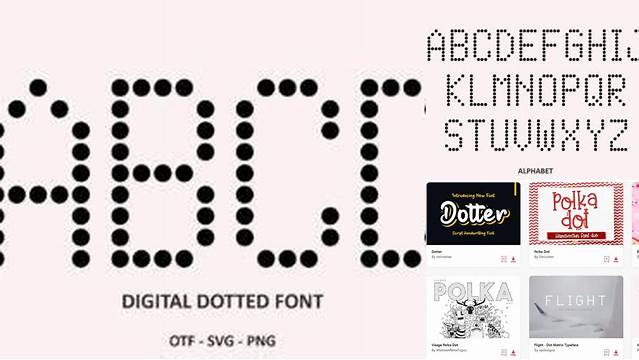
Dotted Fonts: Your Ultimate Guide
Hey guys! Ever stumbled upon a font that just screams, “Look at me!”? Well, dotted fonts are like the cool kids of the typography world, bringing a unique flair to everything from websites to greeting cards. This comprehensive guide is your ticket to understanding everything about dotted fonts: their history, how to use them, where to find them, and even some tips on creating your own. Get ready to dive deep into the dotted world! Let's get started, shall we?
Dotted Fonts: A Beginner's Handbook
So, what exactly are dotted fonts? Simply put, they're fonts where the letters are formed using a series of dots. Think of it like connect-the-dots, but for grown-ups (and kids!). This style offers a playful, sometimes retro, and always eye-catching aesthetic. Dotted fonts aren’t just about looks; they can also be incredibly versatile. Depending on the design, they can evoke a sense of fun, informality, or even sophistication. They’re a great way to add personality to any project. From invitations to logos, the possibilities are endless, and with the right application, dotted fonts can transform a simple design into a memorable piece of art. Their simplicity is their strength, as they can be easily adapted to different sizes and styles, making them incredibly adaptable. For those new to the typography scene, understanding the basics of dotted fonts is essential. This section offers a foundational understanding, starting with what they are and moving on to their fundamental characteristics.
Dotted fonts are not new; their origins are intertwined with early printing techniques and artistic expression. Early printing methods sometimes involved using dots to create images and text, as it was a simpler and more efficient way to transfer designs onto paper. This rudimentary approach laid the groundwork for what we now know as dotted fonts. Over time, designers began experimenting with dotted patterns to create unique visual effects. In the digital age, dotted fonts have gained new life. Designers have rediscovered the aesthetic appeal of dots and are using them to create engaging and playful designs. This revival is fueled by both nostalgia and a desire for designs that stand out from the crowd. Today, the use of dotted fonts is widespread, reflecting their adaptability and enduring charm. Dotted fonts can be used in a wide variety of projects. The use of dotted fonts has expanded from children's books and educational materials to business logos, websites, and promotional materials. They're now a mainstream design choice, and they provide a distinct personality to any design.
Exploring Different Dotted Font Styles
One of the most exciting aspects of dotted fonts is the variety of styles available. Some fonts feature perfectly round dots, while others have square or even irregularly shaped dots. The size and spacing of the dots also vary, influencing the overall look and feel of the font. Some are bold and attention-grabbing, while others are delicate and subtle. Each variation serves a different purpose, depending on the desired aesthetic. Bold dotted fonts are excellent for headlines or titles, ensuring they catch the reader's eye immediately. They have a strong visual impact, making them ideal for marketing materials or posters where grabbing attention is crucial. These are the types of fonts that make a statement, conveying a sense of energy and playfulness. On the other hand, delicate dotted fonts offer a more subtle and elegant touch. These are perfect for invitations, personal correspondence, or anywhere you want a touch of whimsy without being overwhelming. The spacing and the size of the dots can significantly impact the font's overall personality. Close spacing creates a more solid appearance, while wider spacing gives a lighter, more airy feel. The size of the dots also influences the visual weight of the font. Larger dots appear more prominent and bold, while smaller dots create a more delicate look. This variety allows designers to tailor the font to the exact needs of a project, ensuring the final product conveys the intended message. Understanding the different styles of dotted fonts enables designers to create versatile and compelling designs.
Dot Font Design Principles: A Deep Dive
Creating effective designs with dotted fonts goes beyond simply choosing a font and typing out text. It requires an understanding of basic design principles to ensure the font complements the overall look and feel of your project. This section provides a detailed examination of how these principles apply when using dotted fonts.
Dot Font Typography and Readability
One of the most critical aspects to consider when using dotted fonts is readability. Because the letters are created from dots, it's essential to choose a font where the dots are not too close together or too sparse. If the dots are too close, the letters might appear blurry, making it difficult for the reader to distinguish each character. Conversely, if the dots are too far apart, the text can look fragmented and disjointed. The ideal spacing will depend on the specific font and the intended use. Ensure the font is legible at the intended size. Smaller text sizes might not be suitable for dotted fonts, as the details might become lost. However, in larger sizes, dotted fonts often perform exceptionally well, providing a playful and engaging look. Font selection is also critical. Choose a font with clear letterforms that are easy to recognize. Avoid overly complex designs that could further hinder readability. When selecting a font, always test it at different sizes and in various settings to ensure it meets your readability requirements. Consider the context of your design. If the text is a headline or a short title, you may have more leeway in choosing a decorative, less readable font. For body text, however, prioritize clarity and legibility. Choosing the right size, font, and context is key to leveraging dotted fonts effectively.
Color Schemes for Dotted Fonts
The color scheme can significantly impact how dotted fonts are perceived. The color choices can enhance or detract from the font's visibility and aesthetic appeal. When choosing colors, consider the contrast between the font and the background. A high contrast is vital to ensure the text is easy to read. For example, white or light-colored dots on a dark background, or vice versa. The chosen colors can set the mood and tone of the design. Bright, vibrant colors often convey a sense of playfulness and energy, while softer, muted colors create a more subtle and elegant look. Color psychology also plays a role. Different colors evoke different emotions, so consider the message you want to convey and choose colors that align with those feelings. You can experiment with different color combinations to create unique and eye-catching designs. Monochromatic schemes, using different shades of the same color, can create a cohesive and sophisticated look. Complementary color schemes, using colors opposite each other on the color wheel, can create high contrast and visual interest. Choosing the right color is essential for creating dotted fonts that are both visually appealing and effective in communicating their message.
Spacing and Layout in Dotted Font Designs
Spacing and layout are key elements in any design involving dotted fonts. Proper spacing ensures that the text is easy to read and visually appealing. Poor spacing can make the text appear cluttered, disjointed, and difficult to understand. There are several key spacing considerations to keep in mind. Letter spacing refers to the space between individual letters within a word. In dotted fonts, letter spacing should be carefully adjusted to ensure each letter is distinguishable. Too little space can cause the letters to blend, while too much can disrupt the flow of the word. Line spacing (also known as leading) refers to the vertical space between lines of text. Sufficient line spacing is essential for readability, especially with dotted fonts. Wider line spacing creates more visual separation between lines, making the text easier to follow. Word spacing (the space between words) should be consistent to provide a balance and flow in the text. In addition to spacing, consider the overall layout of the design. Use the font strategically in headings, body text, and other design elements to create a clear visual hierarchy. Avoid overcrowding the design with too much text or too many elements. Make sure the text is well-balanced with other visual elements, such as images and graphics. White space (negative space) is your friend. Use white space to create a sense of openness and balance in your design. White space improves readability and helps direct the reader's eye. The careful management of spacing and layout helps in creating dotted fonts that are effective and visually appealing.
Finding and Using Dotted Fonts
Ready to get your hands on some awesome dotted fonts? This part of our guide will walk you through where to find them, how to use them, and what to keep in mind when downloading and using these fonts.
Free vs. Paid Dotted Fonts
When searching for dotted fonts, you’ll encounter both free and paid options. Each has its advantages and disadvantages. Free fonts are great for testing out a style or when you're on a tight budget. However, it's important to be mindful of the license when using them. Some free fonts may only be used for personal projects, while others may have restrictions on commercial use. Always check the license before using a free font in a commercial project. Paid fonts often come with a broader range of styles and features. They also typically offer more comprehensive licensing options, including commercial use rights. Investing in a paid font can provide a more professional look and ensure legal compliance. High-quality paid fonts often have better design, improved legibility, and more extensive character sets. Consider your project's needs and budget when making your decision. For a simple personal project, a free font may suffice. For commercial projects or designs that require a high degree of professionalism, a paid font is usually the better choice. The choice between free and paid dotted fonts depends on your specific requirements, budget, and the scope of your project. Always verify the license to ensure you're using the font legally and ethically. It's all about finding the right fit for your needs.
Where to Download Dotted Fonts
The internet is packed with websites offering dotted fonts. Here are some of the most reliable and popular sources. Google Fonts is an excellent resource for free fonts, including a selection of dotted fonts. Google Fonts has a user-friendly interface and easy-to-download fonts. Font Squirrel is another great site that specializes in free, high-quality fonts. They hand-pick fonts and offer a wide variety of styles. Be sure to check their license before using any font. Creative Market and MyFonts are excellent for finding premium fonts. These sites offer a vast selection of fonts, including a wide range of dotted fonts. The fonts on these sites are usually professionally designed and offer commercial-use licenses. Adobe Fonts (formerly Typekit) is included as part of Adobe Creative Cloud subscriptions. It offers a curated collection of fonts, including dotted fonts, with reliable licensing. When downloading fonts, ensure the website is reputable and the font files are safe. Always download fonts from trusted sources to protect your computer from malware or viruses. Checking the font's license is crucial before use. Make sure you understand the terms of use, especially if you plan to use the font for commercial purposes. Downloading and using dotted fonts can be simple if you know where to look.